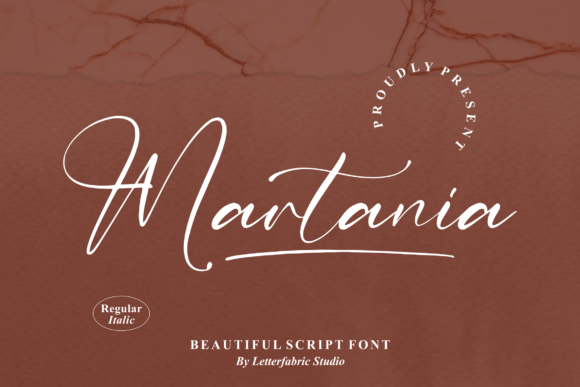
About Martania Font
Martania is a delicate and classic script font. It can be used for lovely creations such as book titles, love letters, wedding invitations and pretty much anything that requires a dainty touch. This font is PUA encoded, which means you can access all of the glyphs and swashes with ease!